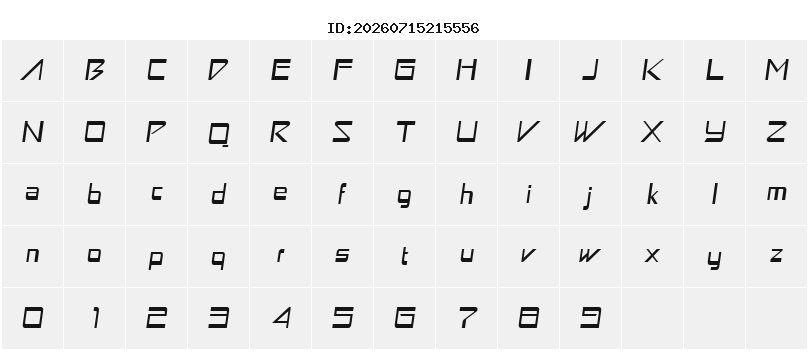
• Font Name: Astron Boy
• Font ID: RayLarabie: Astron Boy Italic: 2000
• Full Font Name: Astron Boy Italic
• Version: Version 1.0; 2000; initial release
• PostScript Name: AstronBoy-Italic
• Designer: Ray Larabie
About Astron Boy.ttf
Astron Boy.ttf is a modern, elegant sans-serif font designed for ultimate readability and visual harmony. Perfect for branding, headlines, web design, and print materials.